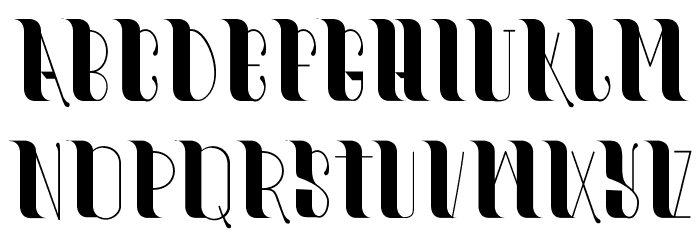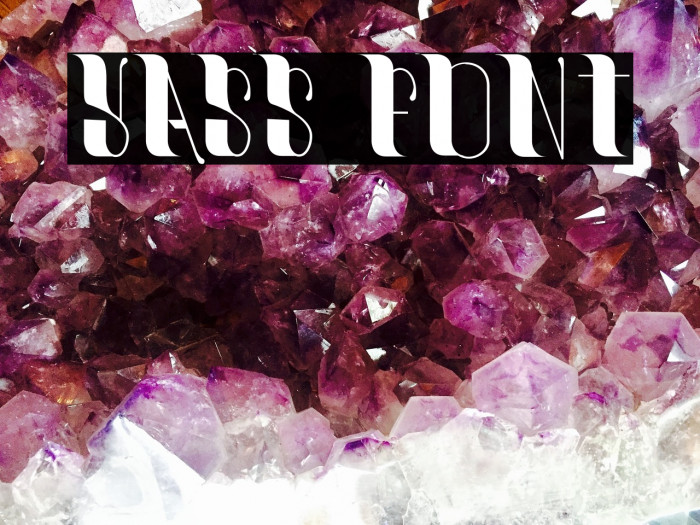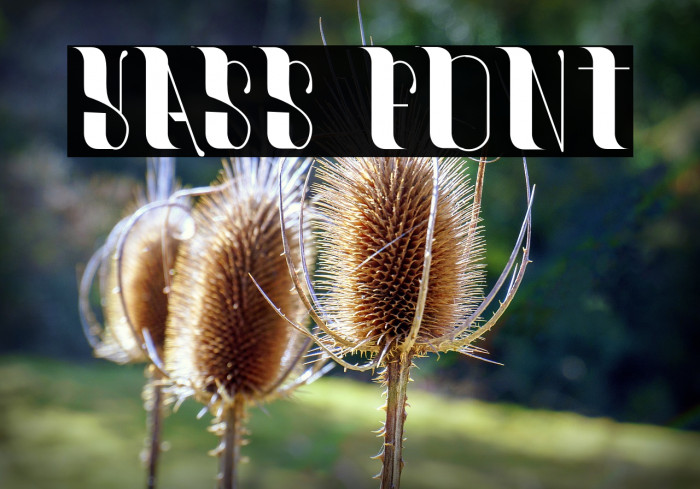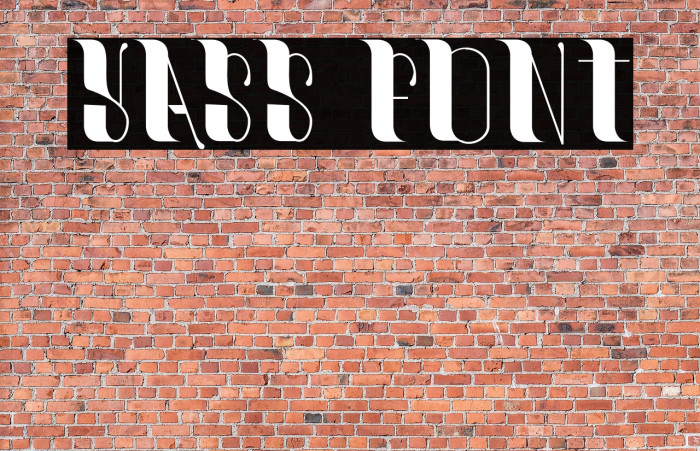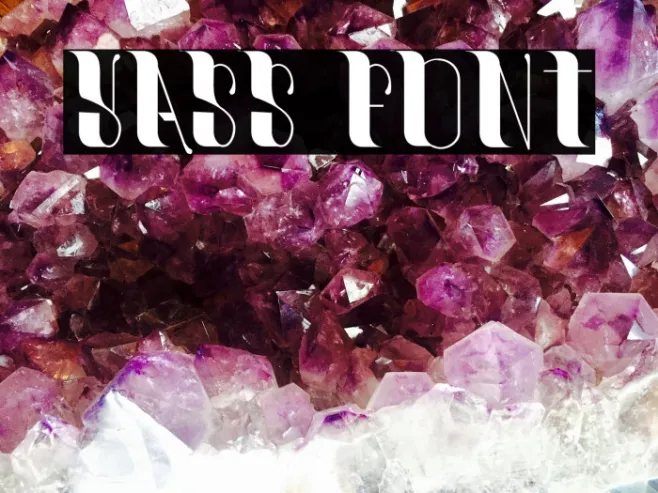
Yass Font
This font features a unique blend of modern and classic elements, characterized by its bold and dramatic strokes. The uppercase letters exhibit a high contrast between thick and thin lines, creating a striking visual impact. The lowercase letters maintain this contrast while incorporating elegant curves and flourishes, adding a touch of sophistication. The numbers are designed with a consistent style, ensuring readability and aesthetic harmony. The special characters complement the overall design, making it versatile for various applications. The font's distinct style makes it suitable for creative and artistic projects, where a bold statement is desired.
A bold, high-contrast font with elegant curves and dramatic strokes.
- Proposed Projects: Ideal for branding, poster design, and artistic projects requiring a bold statement.